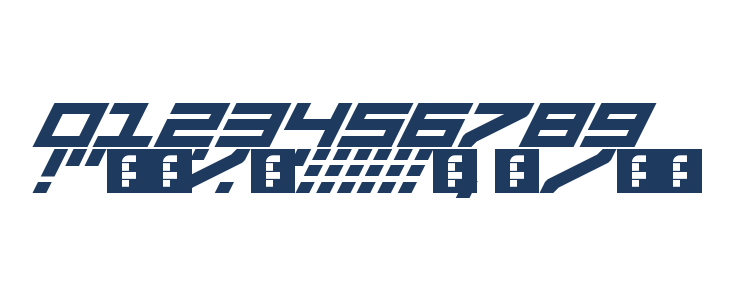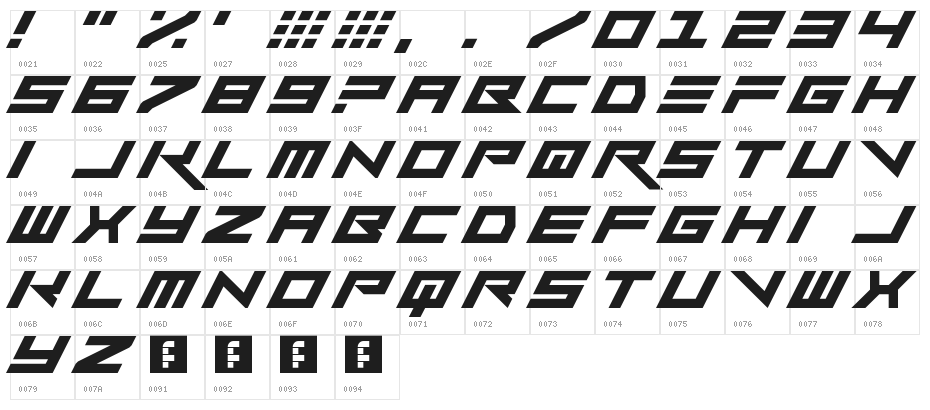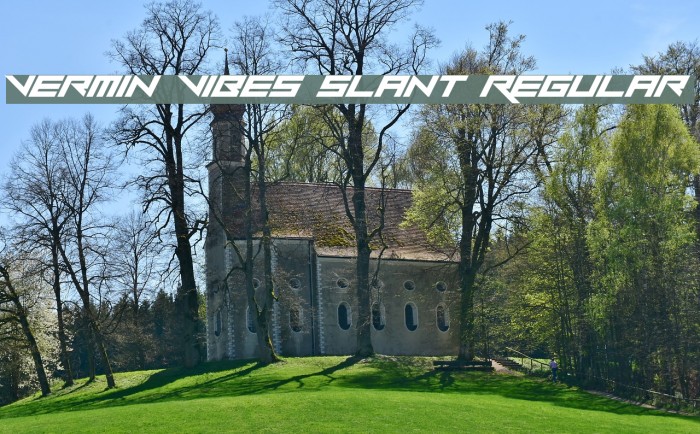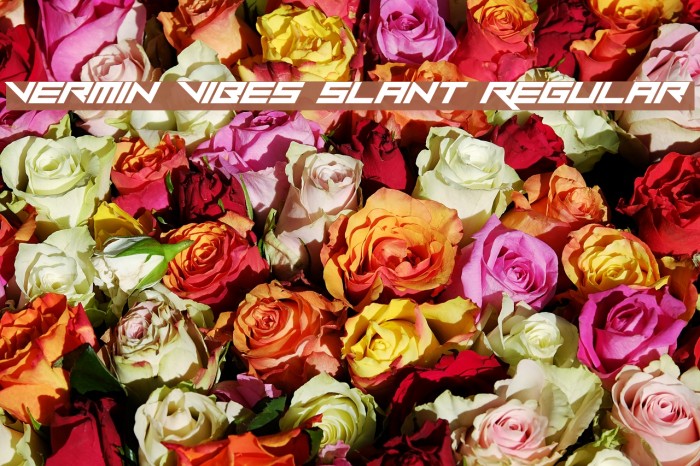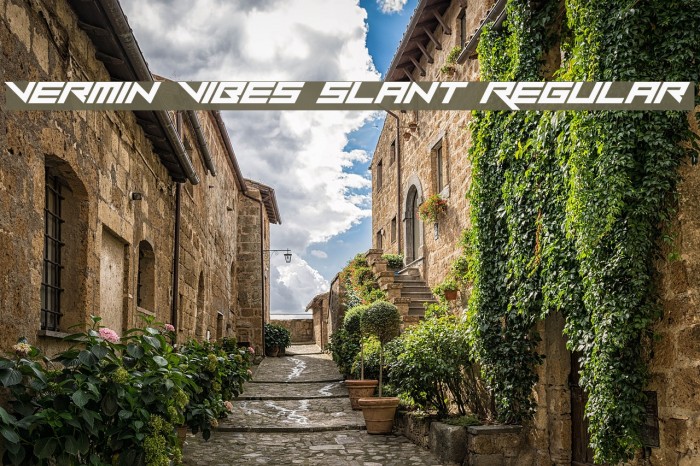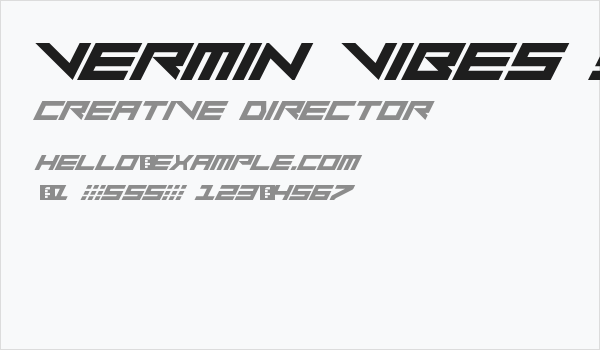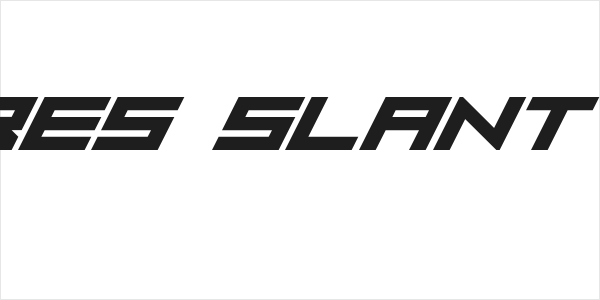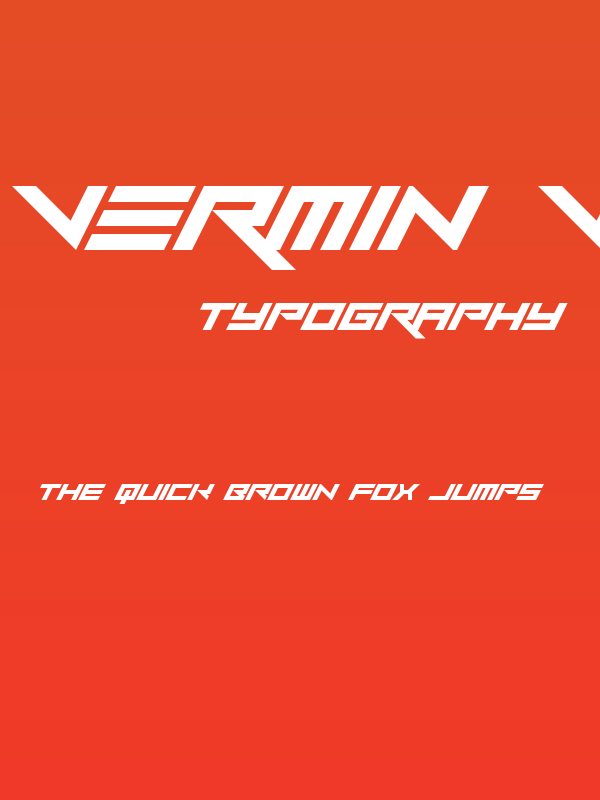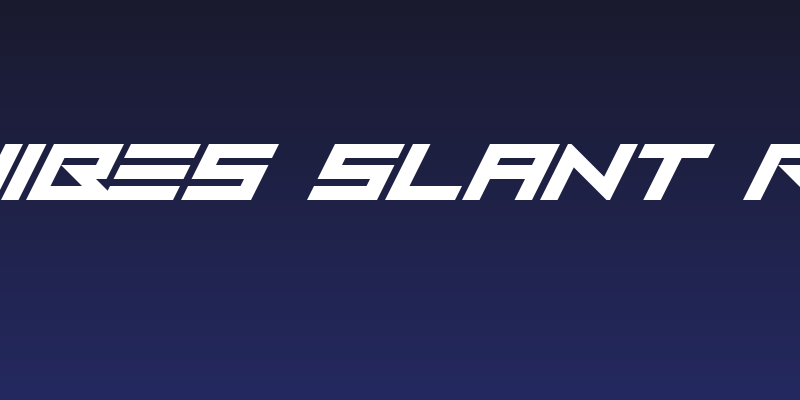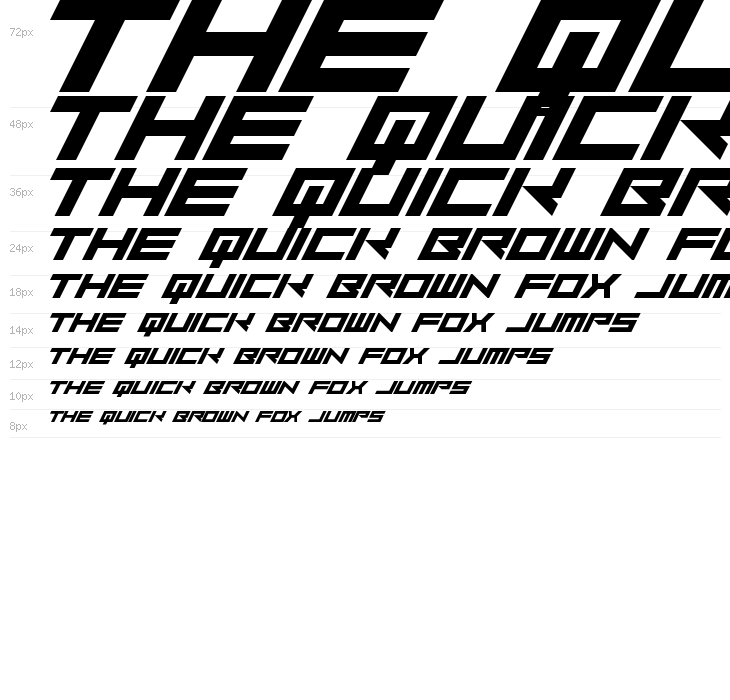
Vermin Vibes Slant Regular Font
Vermin Vibes Slant Regular Description
This font features a bold, angular design with a futuristic and dynamic appearance. The characters are slanted, giving a sense of motion and speed. The geometric shapes and sharp edges contribute to a modern, tech-inspired aesthetic. The uppercase and lowercase letters maintain a consistent style, while the numerals and special characters integrate seamlessly with the overall design. The font's unique style makes it stand out, ideal for projects that require a strong visual impact.
| Proposed Projects | Ideal for video game titles, tech branding, sci-fi posters, and dynamic logos. |